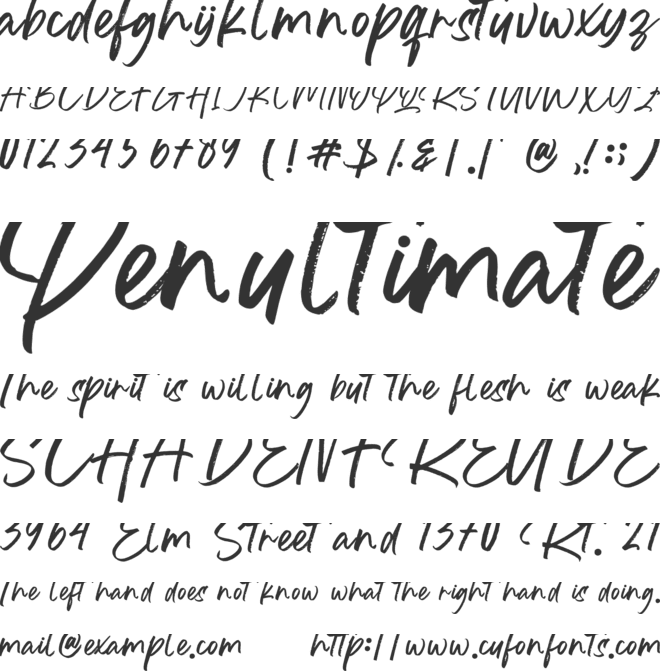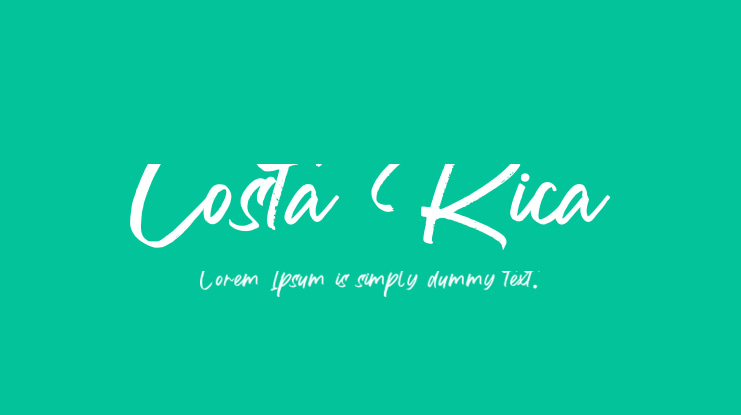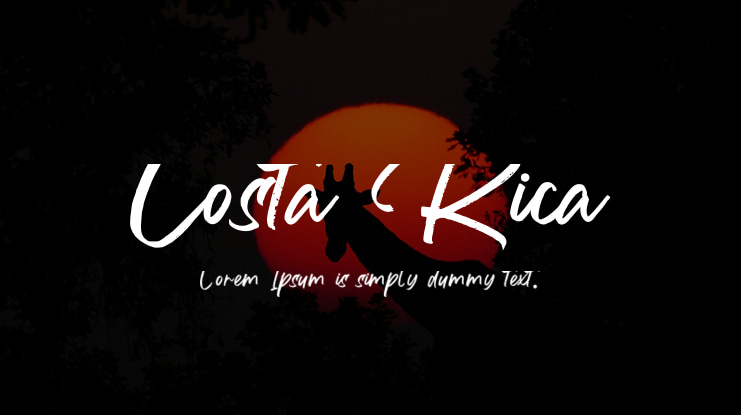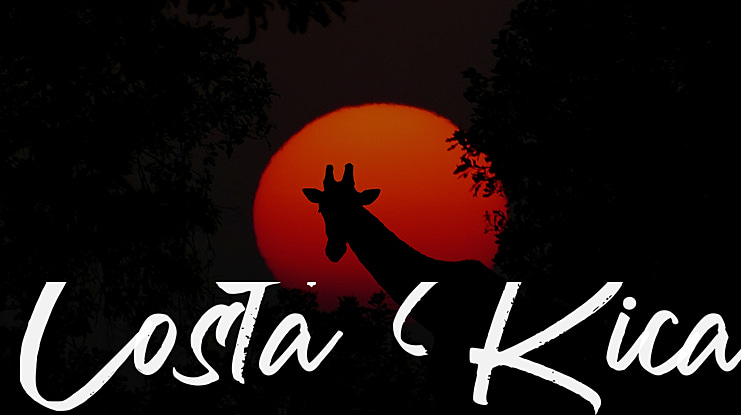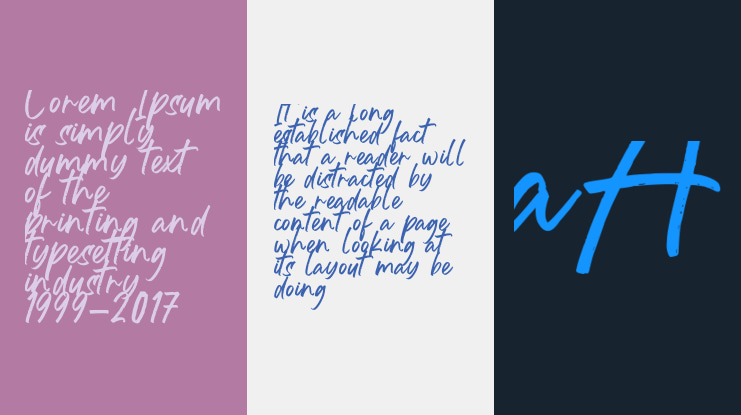
Costa Rica Font
Introducing Costa Rica- handwritten font. Costa Rica is a brush font. Made with naturally brush. The texture from the brush font will make your design more beautiful and powerful. This font is suitable for any design like branding, quotes, t-shirt printing and etc. ============================================================= Full Version With Swash & Ligatures = https://din-studio.com/product/costa-rica-brush-font/ ============================================================= NOTES PENTING BAGI PENGGUNA FONT BLUEBERRY :